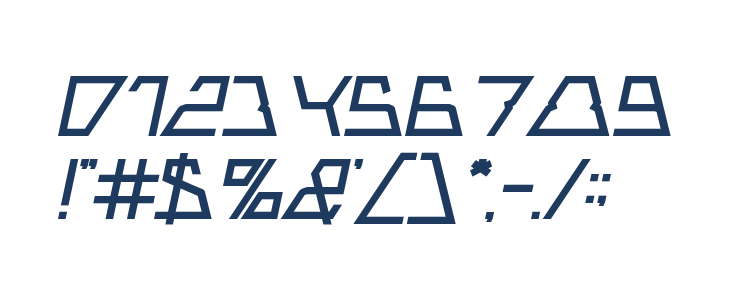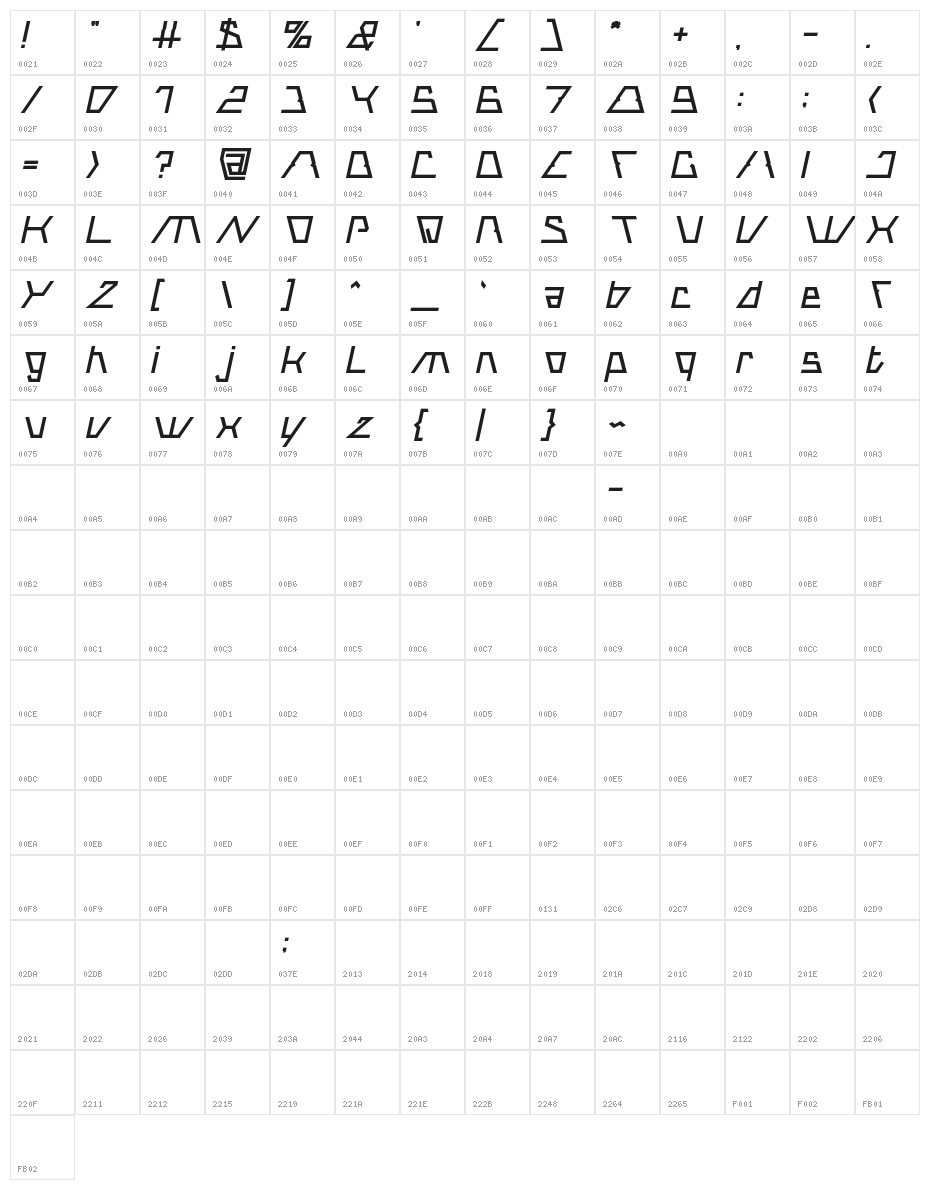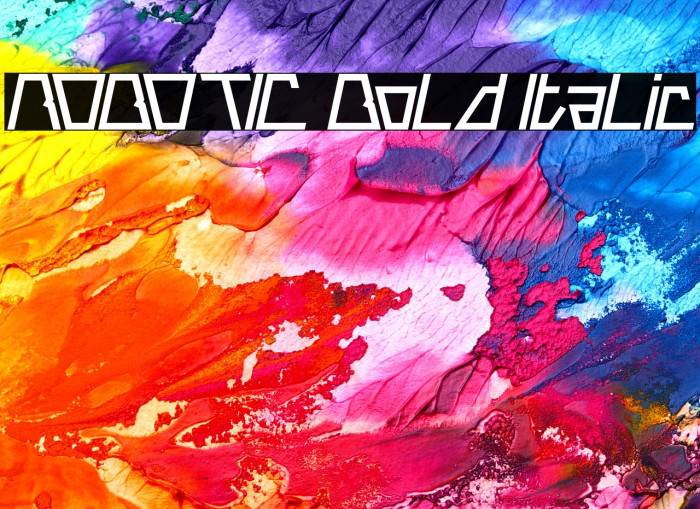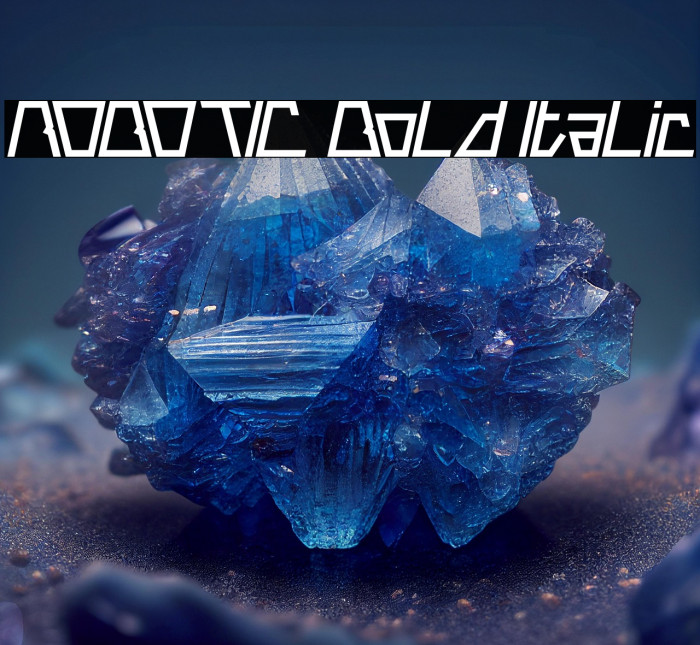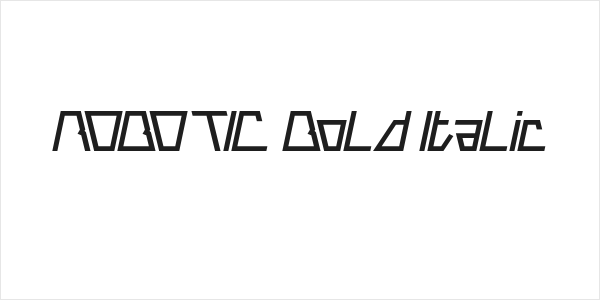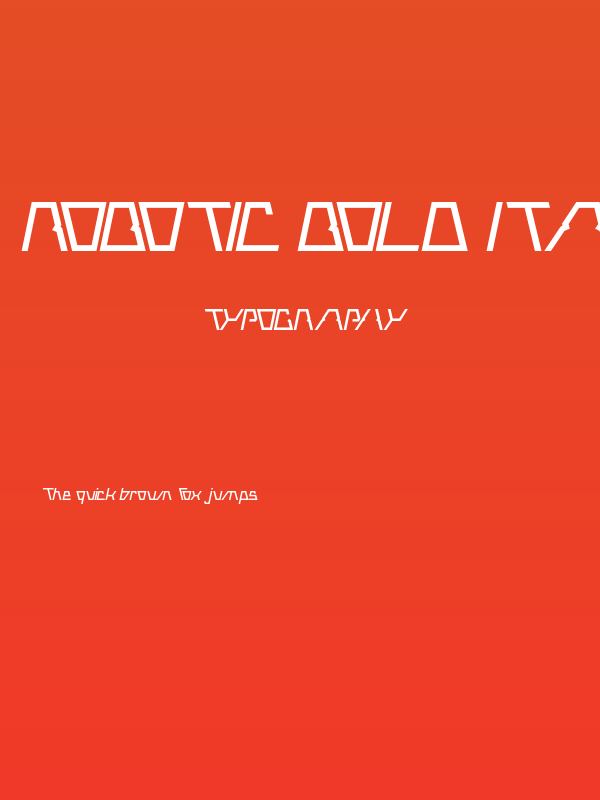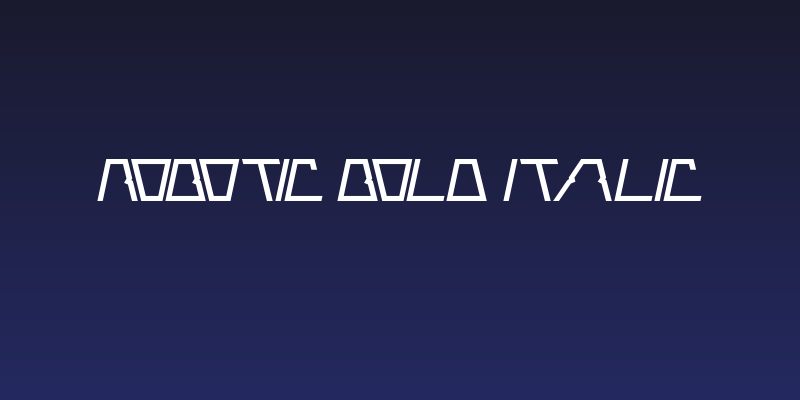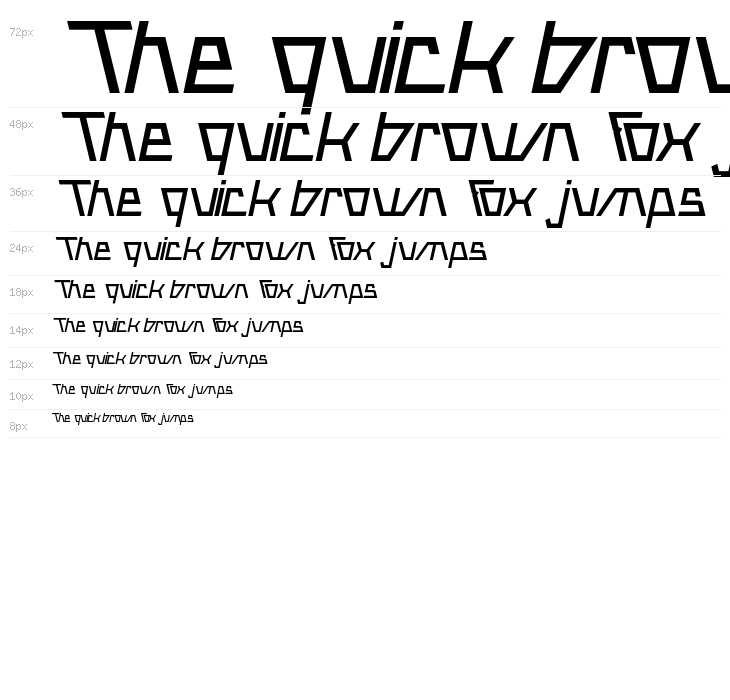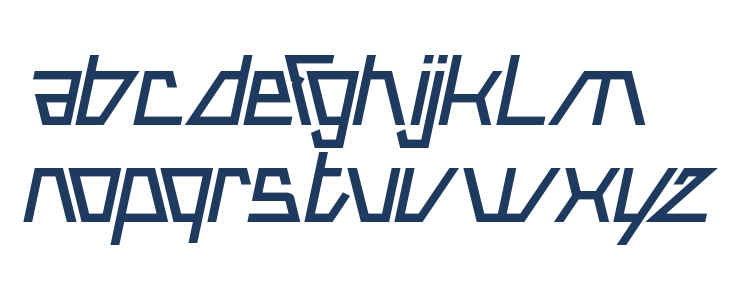
ROBOTIC Bold Italic Font
ROBOTIC Bold Italic Description
This font features a futuristic and angular design, characterized by sharp edges and a geometric structure. The bold and italic styling gives it a dynamic and forward-leaning appearance, enhancing its modern and tech-inspired aesthetic. The uppercase and lowercase letters maintain a consistent angular theme, while the numerals and special characters follow suit with a similar sharpness. The font's unique style makes it stand out, suitable for projects that require a cutting-edge and innovative look. The consistent line thickness throughout the characters provides a uniform appearance, while the italic slant adds a sense of motion and speed.